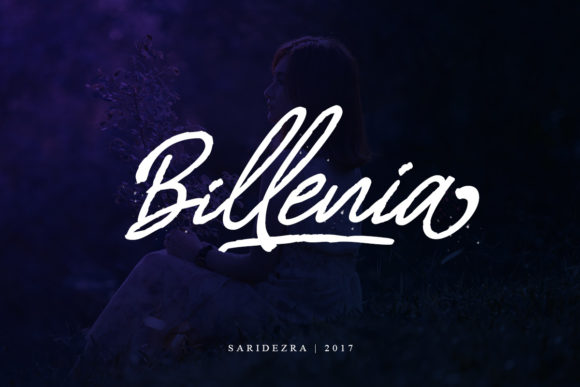
Introducing Billenia Font, a captivating script font that will add a touch of elegance and sophistication to your designs. Created by the talented saridezra, Billenia is characterized by its unique handwritten style, giving it a personal and authentic feel.
With its gentle curves and flowing lines, Billenia exudes a sense of grace and charm that is sure to leave a lasting impression. Whether you're designing wedding invitations, creating logos, or simply adding a touch of flair to your social media posts, Billenia is the perfect choice for adding a touch of individuality and style.
Unleash your creativity with Billenia and let your words dance across the page. Its beautiful glyphs and ligatures create a cohesive and visually appealing text that will captivate your audience. Whether you're using it for branding, marketing, or personal projects, Billenia is sure to make a statement.
So why settle for ordinary fonts when you can have Billenia? With its striking appearance and endless possibilities, Billenia is the perfect choice for adding a touch of sophistication and elegance to your designs. Download Billenia today and let your creativity soar!